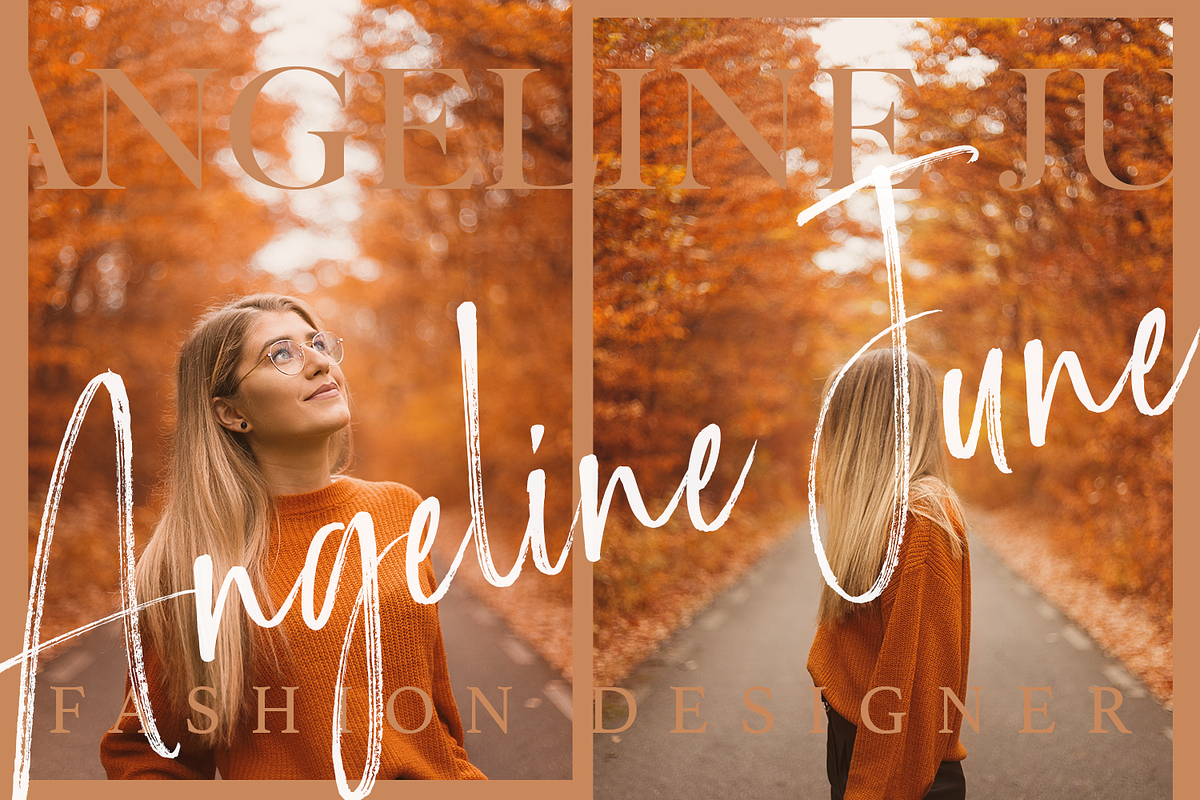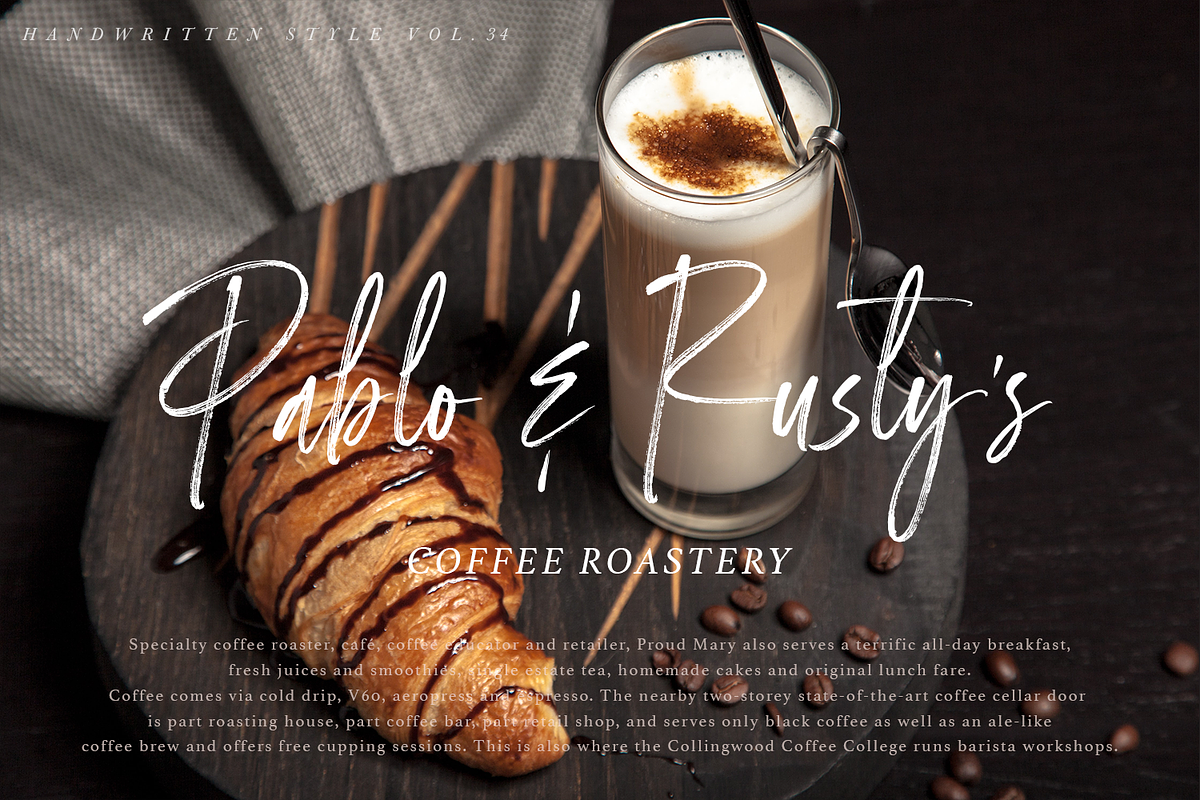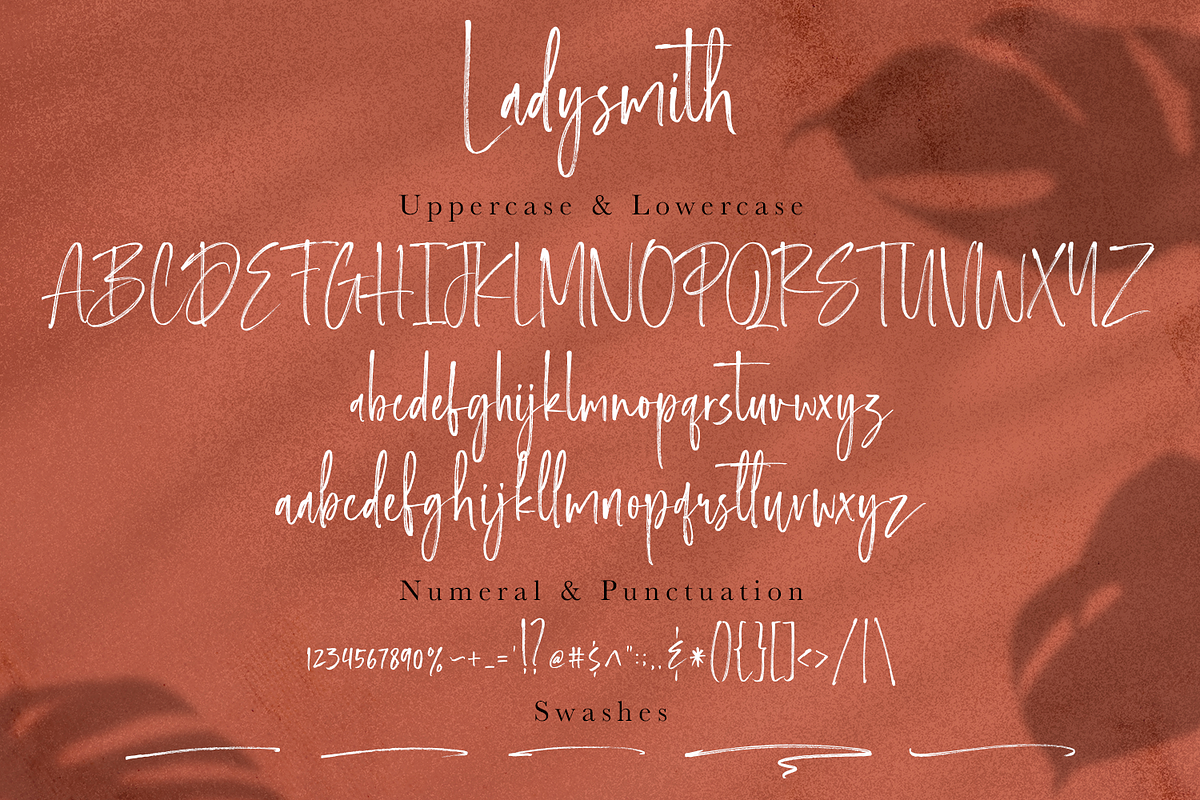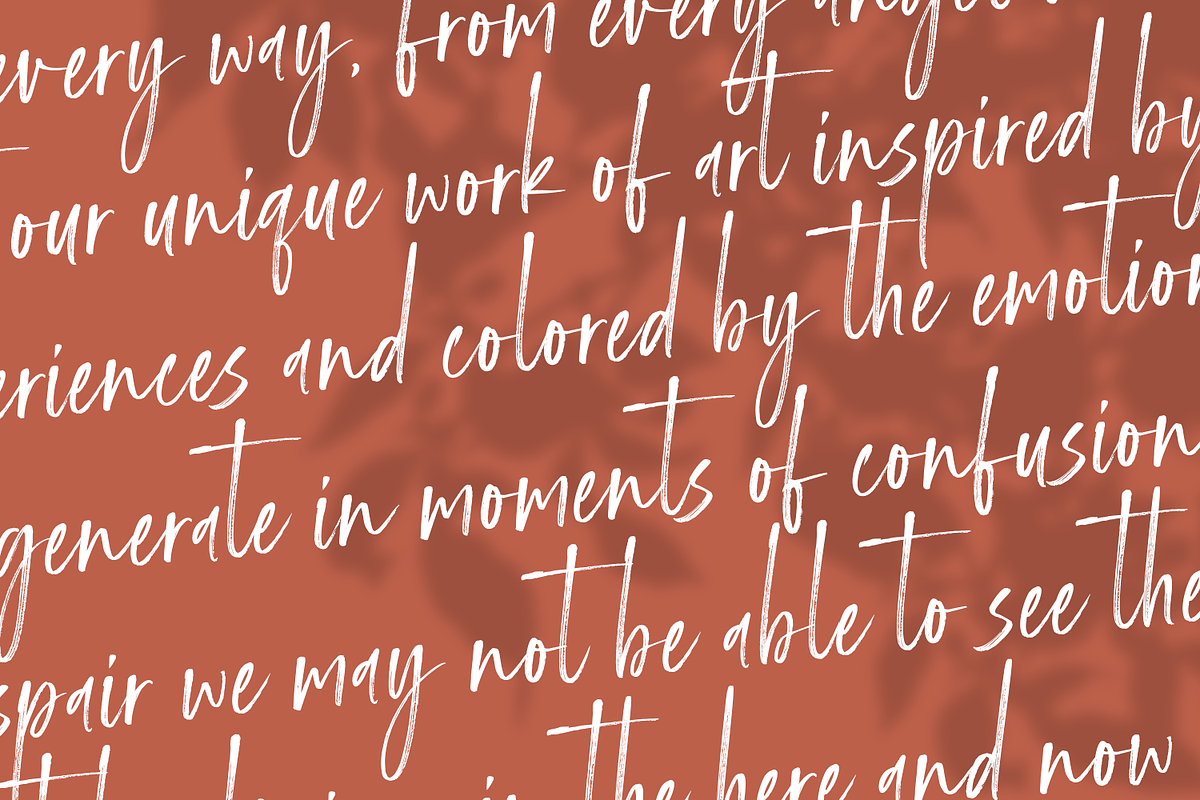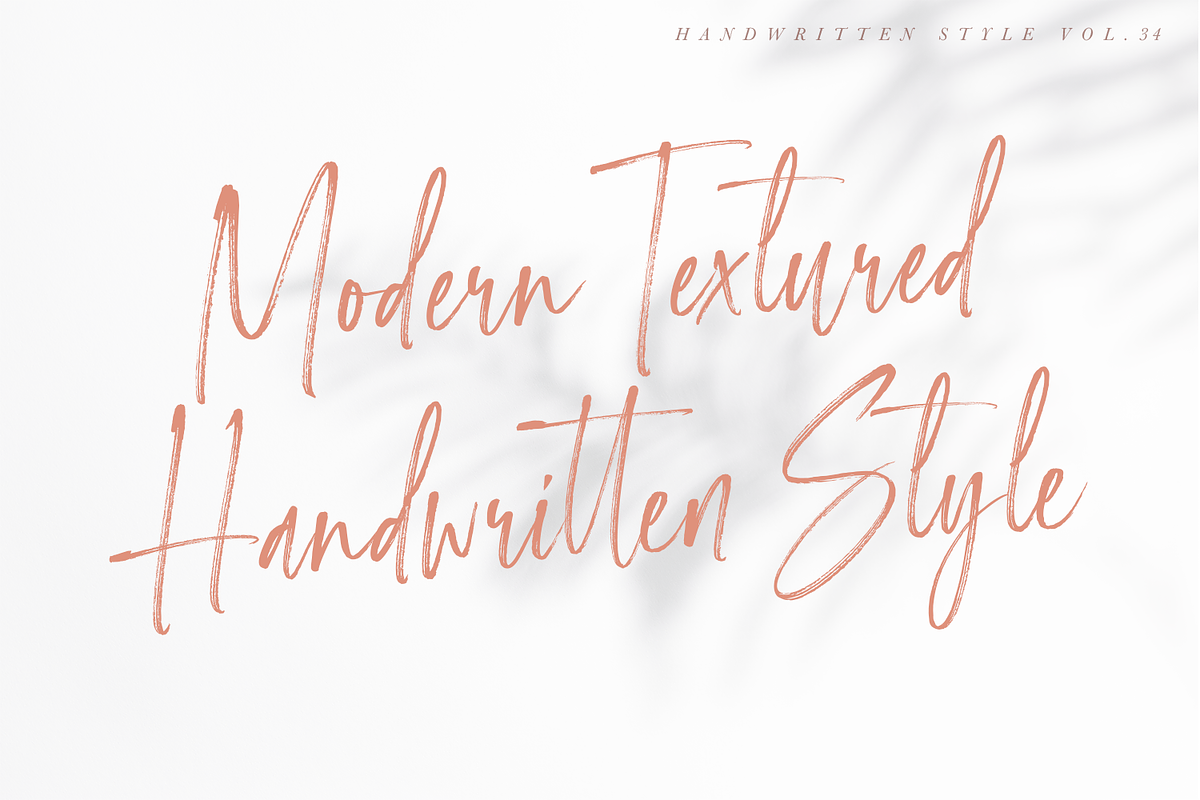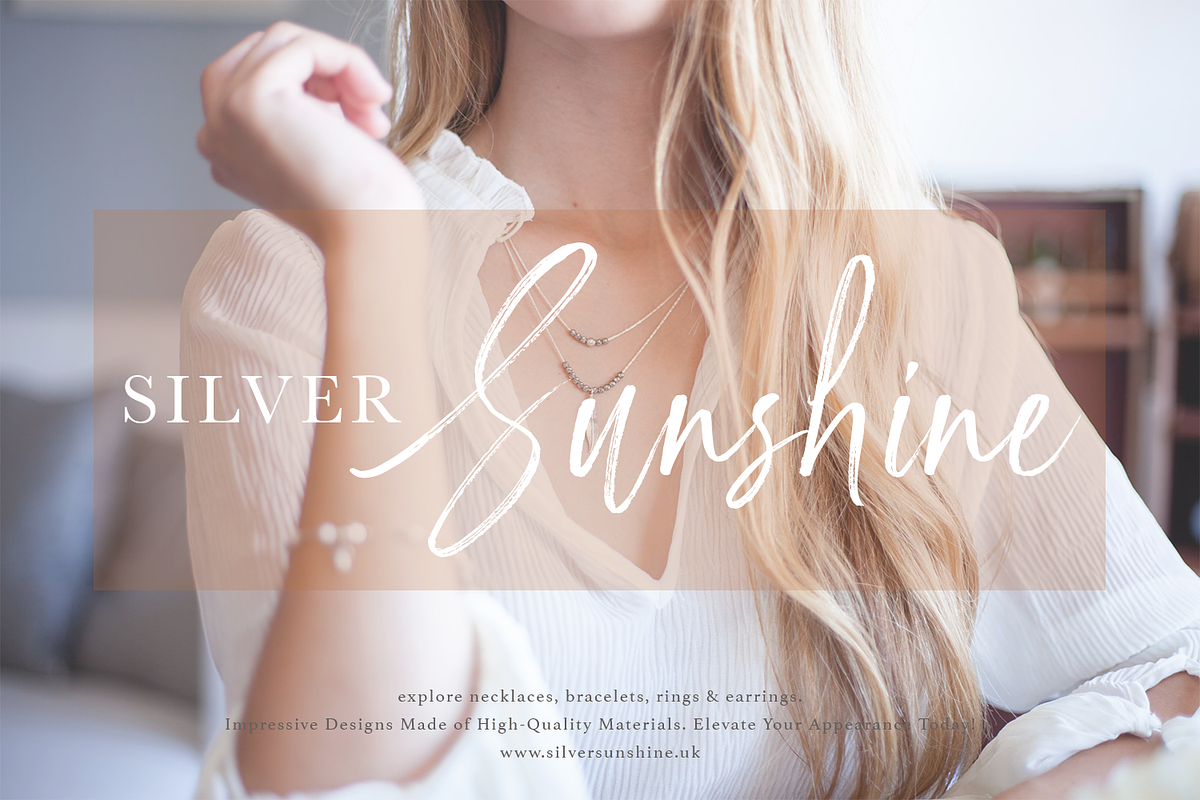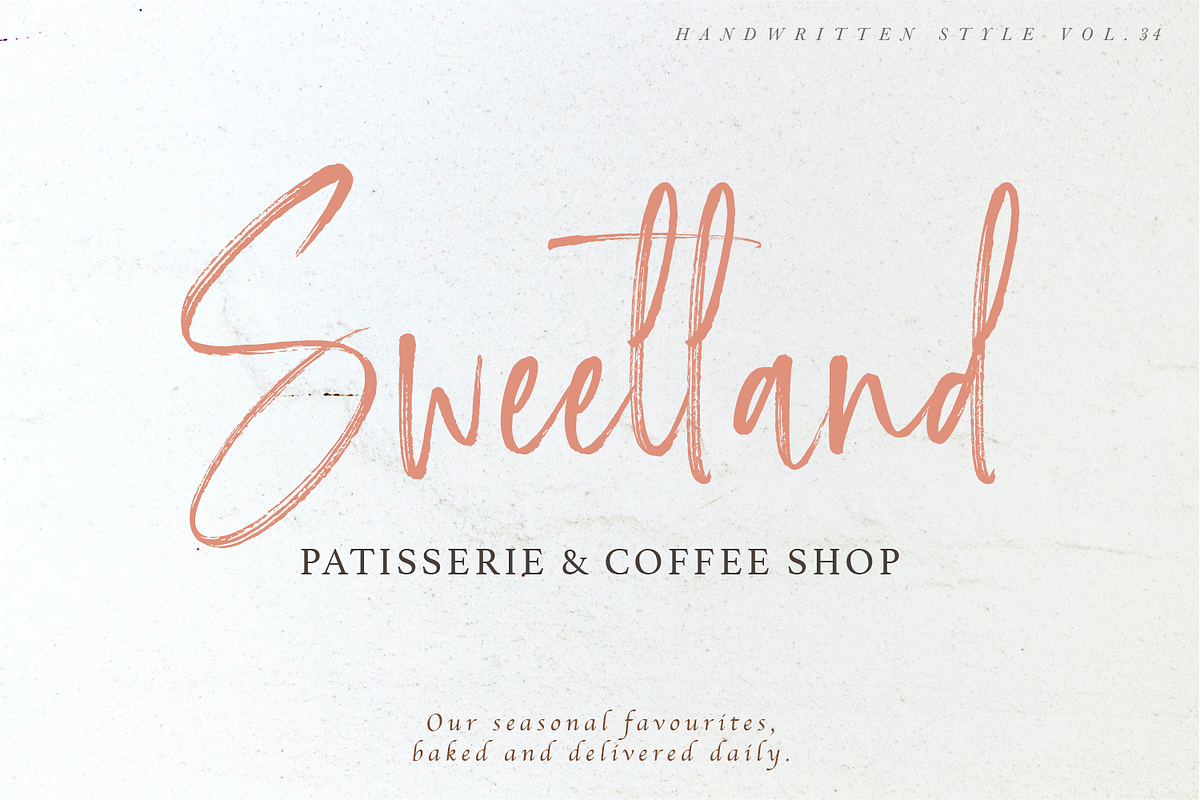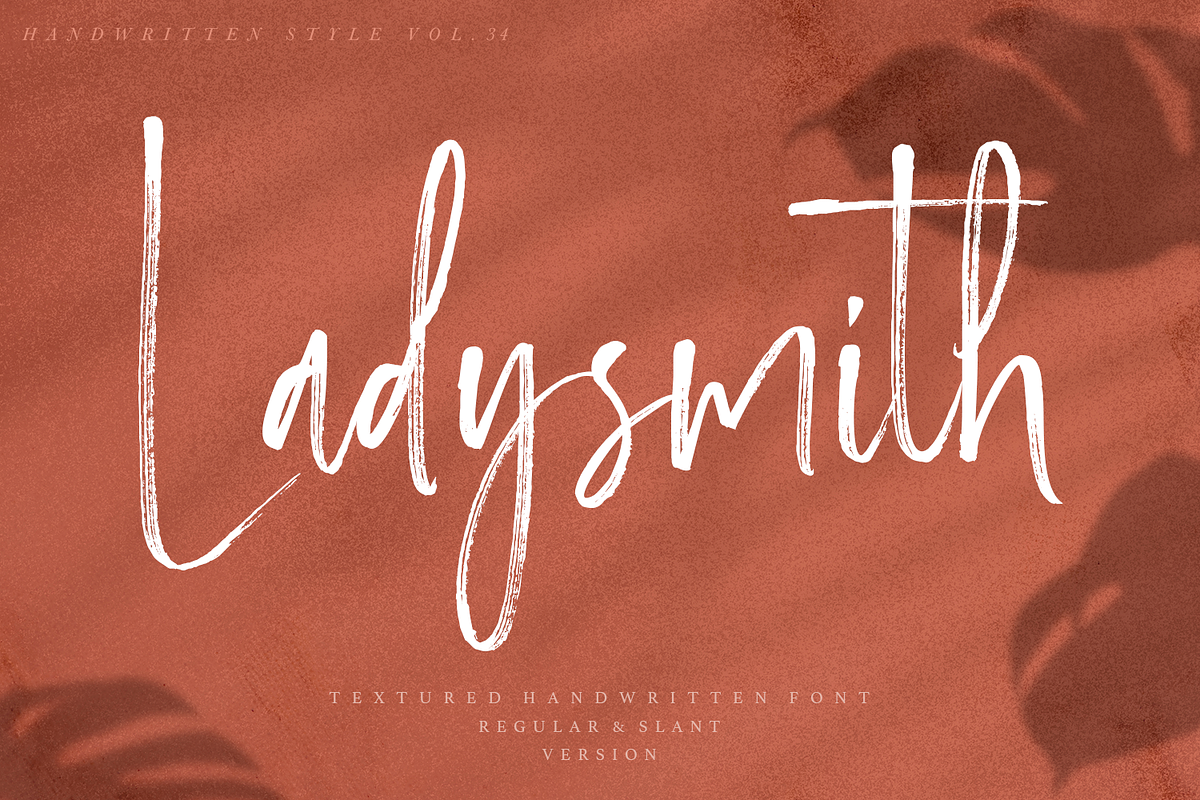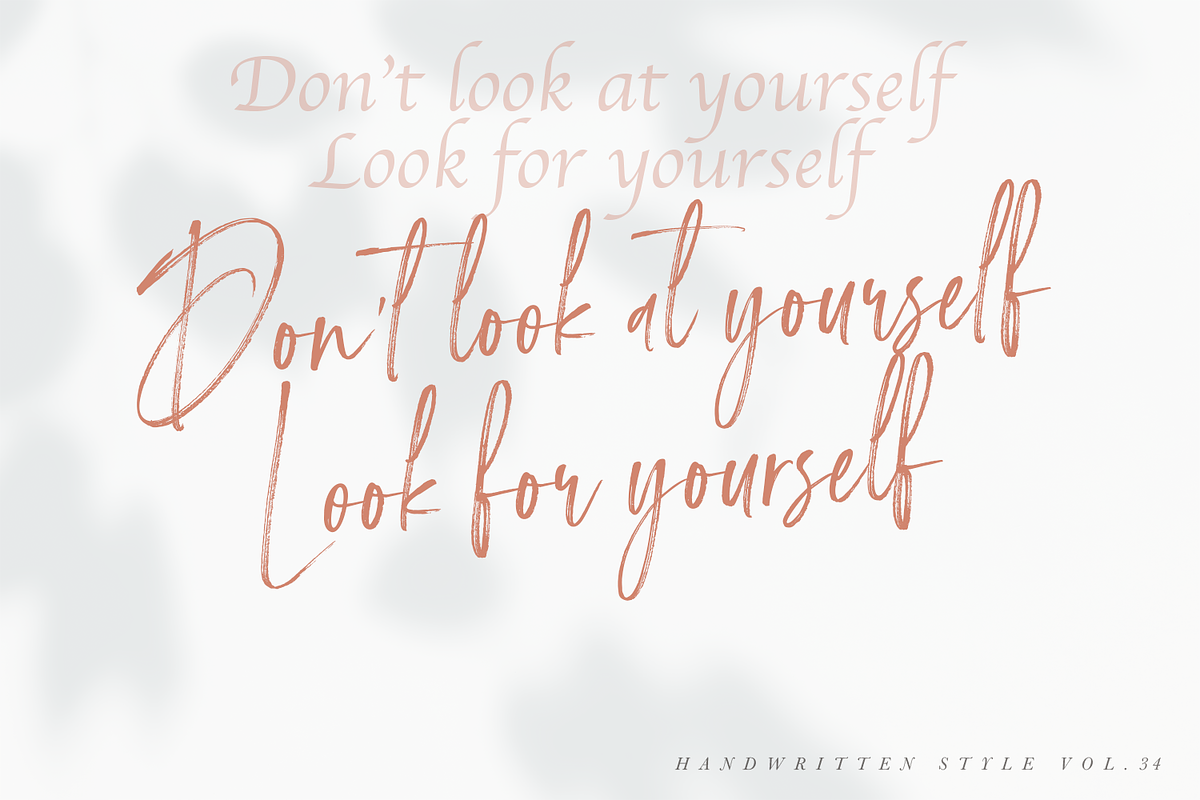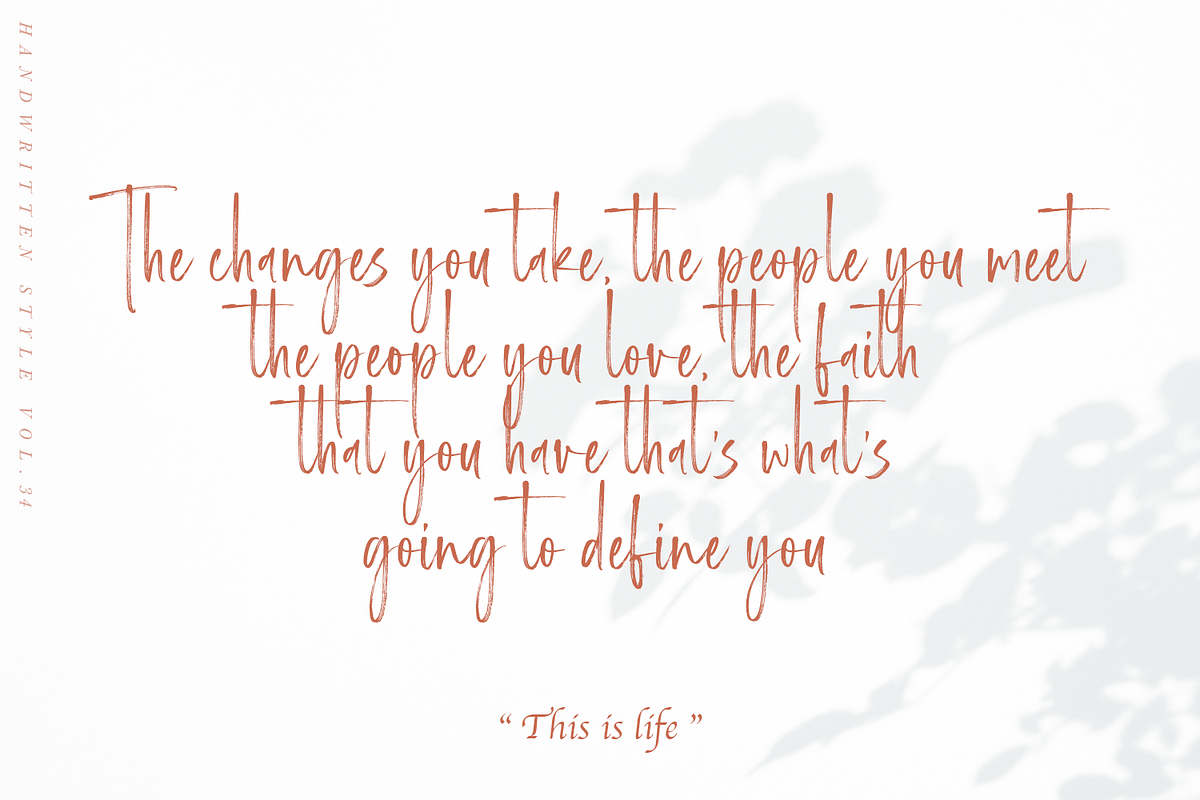
Ladysmith - Handwritten Font
Hi everyone, let me introduce a new Ladysmith Handwitten Font with a distinctive texture. Like my previous textured fonts, I created the Ladysmith font directly on paper with a rough brush, for a strong, consistent texture.
Ladysmith - Handwritten Font has a total of 2 alternative lowercase letters which have different overall shapes. for the first lowercase I made straight lowercase letters, and it seemed neat. For the second lowercase, I made it more modern, making the letters seem to go up and down. I also added a Slant version to make the font look more modern when you use it.
Ladysmith can also be used for various projects such as stationery invitations, social media, logos, weddings, branding, graphic design with the addition of doodles. and can be combined with a variety of serif fonts to enhance the project you want to work on.